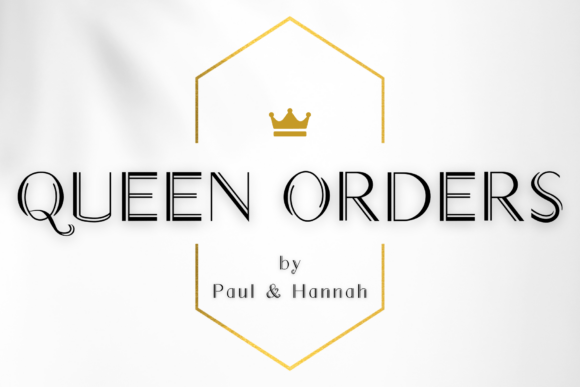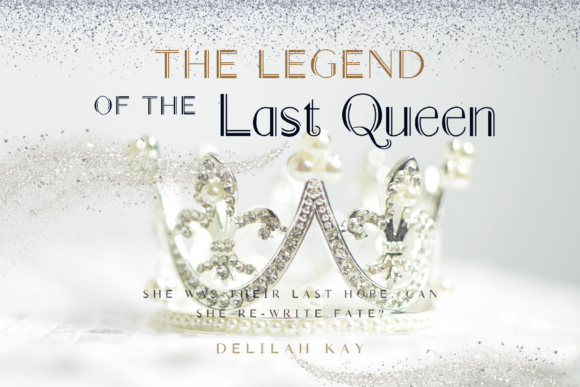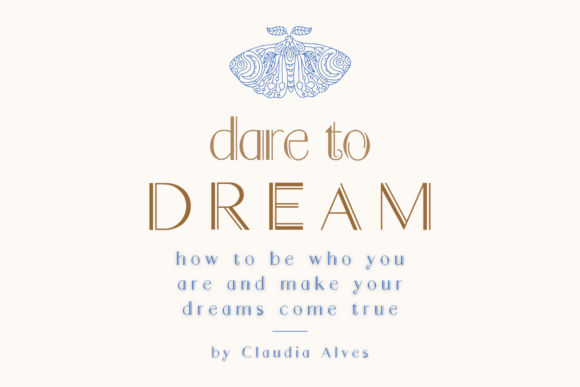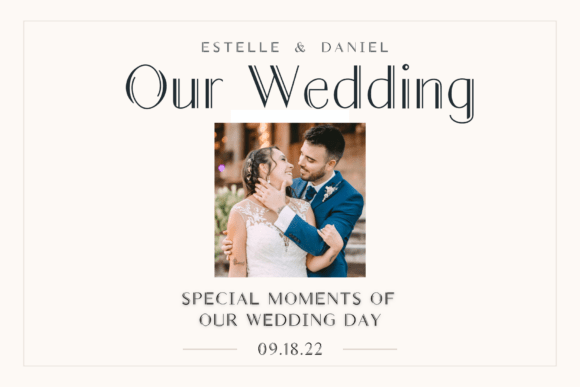
Queen Orders Font
About the Queen Orders Font
Unleash your creativity with Queen Orders Font, a versatile font perfect for a wide range of applications. QUEEN ORDERS This font was created for International Mother’s Day. The author’s font, the EMERALD, was modified to make the overlapping lines thicker, resulting in a unique and beautiful font that is appropriate for every mother who must always be strong, profound, and beautiful in the eyes of her children.
Queen Orders is ideally suited for headlines, short impactful statements, and branding applications where a strong, elegant presence is desired. Its bold character makes it perfect for logos, posters, and packaging design, particularly for products aimed at a sophisticated female audience. Avoid using it for large blocks of body text or UI elements; its weight and strong forms are less legible at smaller sizes.
This font pairs well with clean sans-serif fonts like Montserrat or Open Sans for a modern, balanced feel. For a more luxurious aesthetic, consider pairing it with a delicate serif like Playfair Display or a script font like Great Vibes, but use the script sparingly as a supporting element.
Queen Orders projects an air of sophisticated strength and quiet confidence. Its inherent boldness conveys authority without being aggressive, making it a versatile choice for brands that value both power and grace.
Queen Orders Font Usage Examples
Queen Orders Font Example